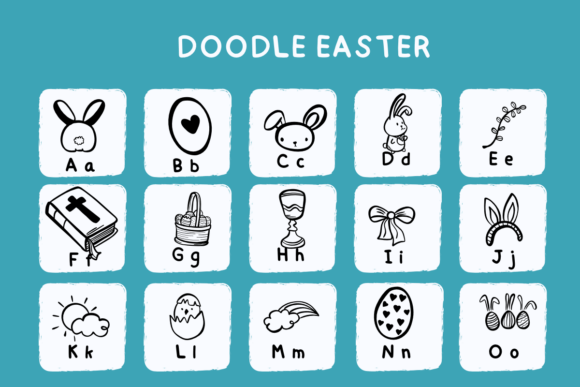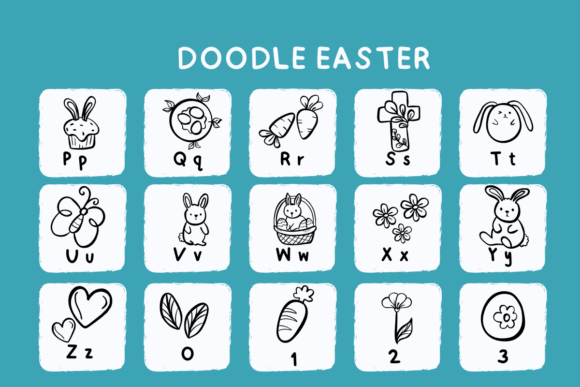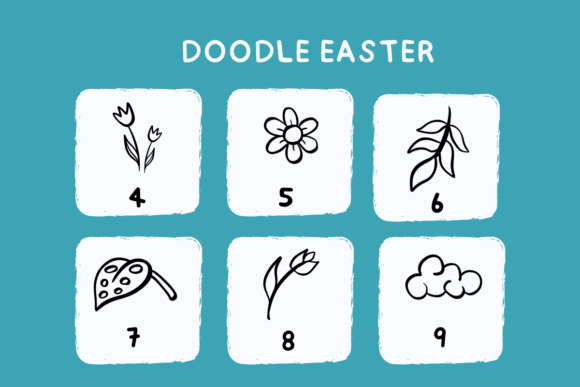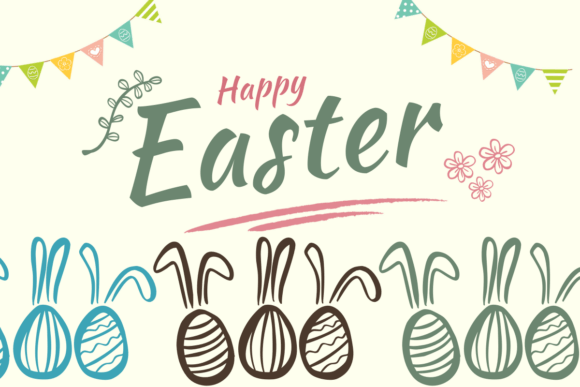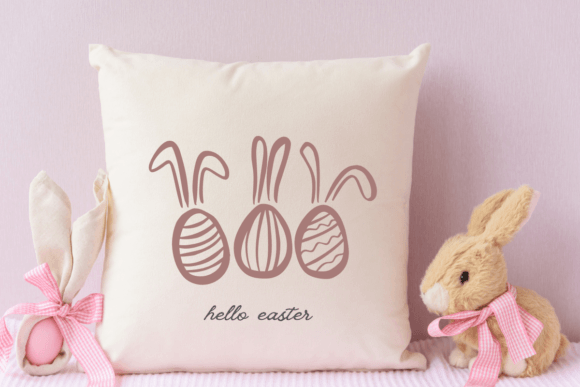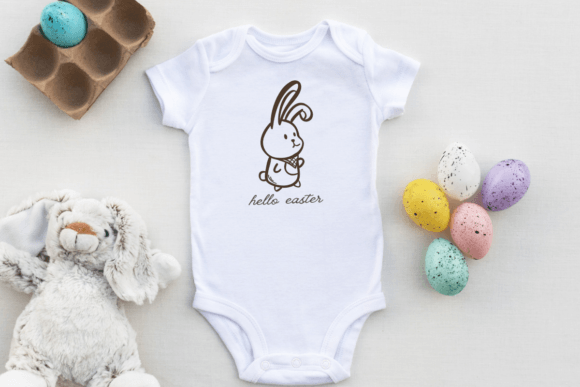
Introduction to Doodle Easter Font
As a designer, have you ever stared blankly at your computer screen, struggling to find the perfect font to match your creative vision? It’s a moment we’ve all been there, and it’s exactly why we’re excited to share with you the Doodle Easter Font. This adorable dingbats font is more than just a pretty face – it’s a high-quality design resource that can elevate your creative projects to new heights.
With its cute theme and versatile style, the Doodle Easter Font is perfect for everything from wedding invitations to DIY crafts and decorations. And the best part? It’s available for a free download, complete with a transparent background that makes it easy to use in any design project. Whether you’re a seasoned pro or just starting out, this design resource is a valuable addition to your toolkit.
Key Features of Doodle Easter Font
- High-quality, hand-drawn design perfect for creative projects and Easter-themed events
- Includes transparent background option, allowing for easy customization and integration into various designs
- Features a unique, whimsical style with intricate details, ideal for adding a playful touch to designs
- High-resolution design, suitable for printing and digital use at 300 DPI or higher
- Perfect for creating invitations, greeting cards, and other Easter-themed materials
Honest Review: Doodle Easter Font
I recently had the opportunity to test the Doodle Easter Font, a free download that’s perfect for adding a playful touch to your creative project. I must say, I was impressed by its high quality and versatility.
What works well: ✨ The font is incredibly easy to use, with a transparent background that makes it perfect for overlaying on top of other design elements. The whimsical doodles and Easter-themed characters add a delightful touch to any design project.
- Perfect for Easter-themed projects or spring-inspired designs
- Easy to use and customize
- High-quality, transparent background
- Great for adding a playful touch to your designs
What doesn’t work well: ⚠️ While the font is generally well-designed, some of the doodles may be a bit too simplistic or repetitive. Additionally, the font doesn’t come with a wide range of customization options, which may limit its use in more complex design projects.
Overall, I’m quite impressed with the Doodle Easter Font. It’s a great addition to any designer’s toolkit, and its free download makes it an accessible resource for creative projects of all kinds.
Tips for Getting the Most Out of Doodle Easter Font
For the best results, use the Doodle Easter Font in conjunction with other design elements, such as images and shapes. Experiment with different font sizes and colors to create a visually appealing design.
Common Use Cases for Doodle Easter Font
The Doodle Easter Font is perfect for creating designs for Easter-themed projects, such as cards, invitations, and decorations. It’s also great for adding a touch of whimsy to designs for spring and summer projects.